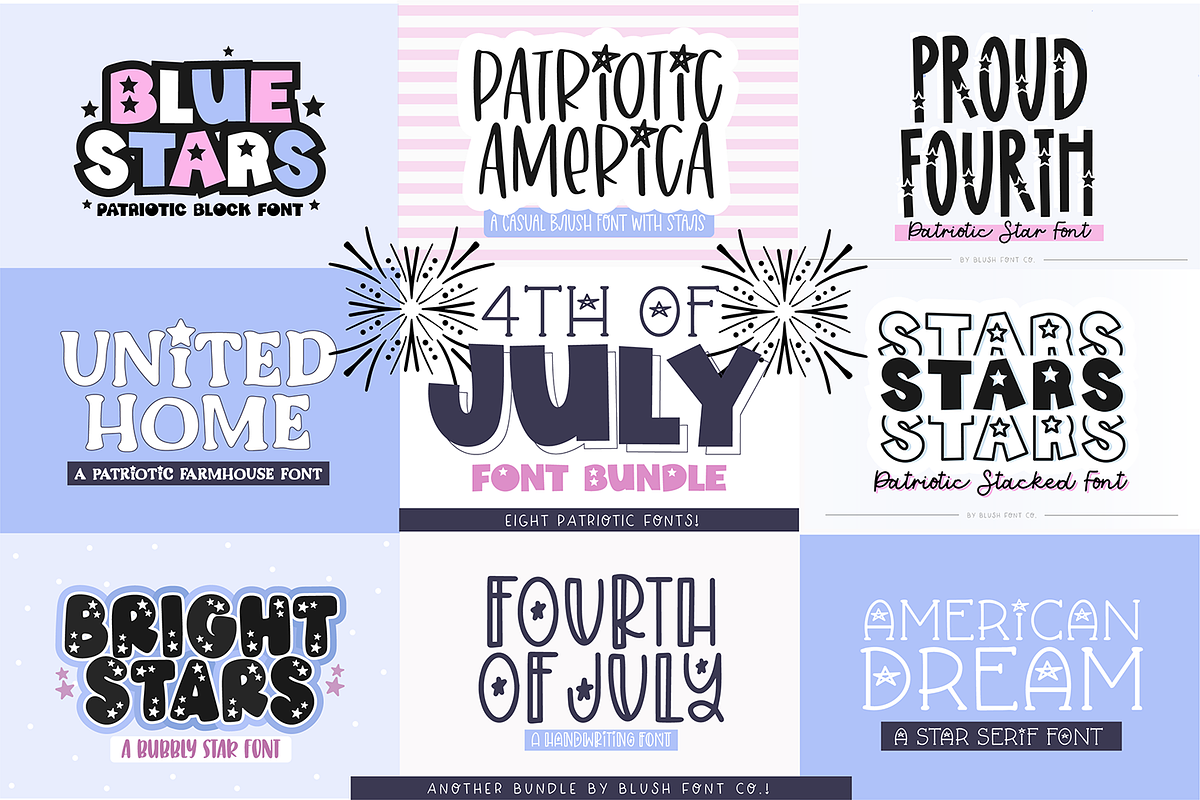
4th of July Font Bundle Free Download is a festive, star-spangled collection of patriotic typefaces perfect for celebrating American independence in style. This bundle includes a variety of bold serifs, playful scripts, and vintage display fonts—ideal for holiday party invites, BBQ signage, apparel, banners, fireworks promotions, and patriotic merchandise.
Whether you're going for classic Americana or a fun, modern twist, this bundle has the red, white, and blue energy you need. Each font is designed to pair beautifully with stars, stripes, and all your favorite July 4th visuals.